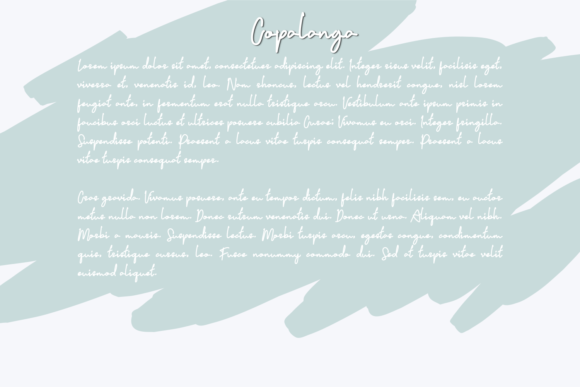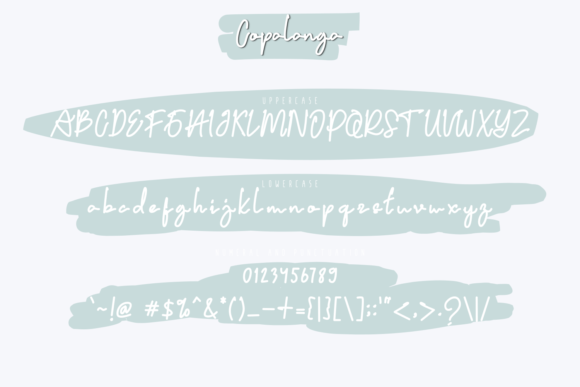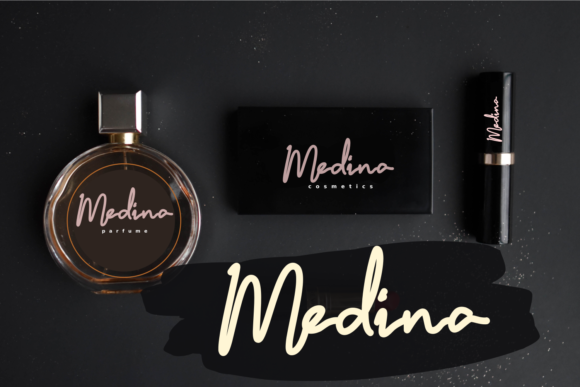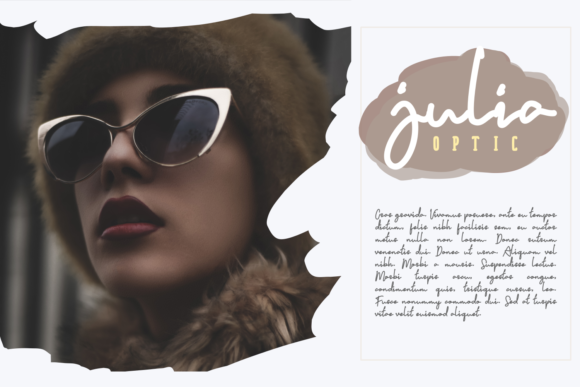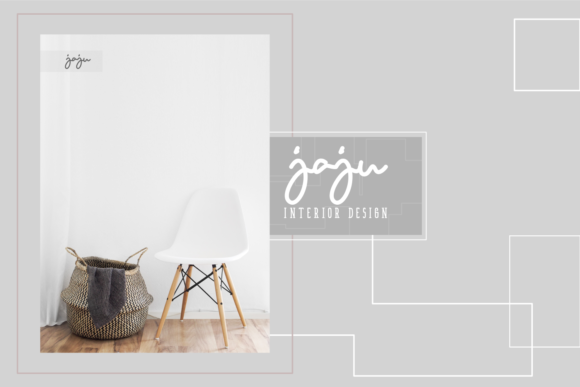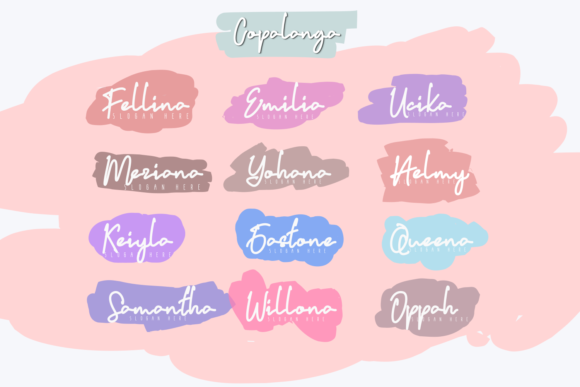
Copalanga Font: Elevate Your Designs with Elegant Handwritten Script
In the world of typography, fonts play a crucial role in conveying the tone and personality of a design. For crafters, designers, and artists, finding the perfect font can be a daunting task. However, if you’re looking for a typeface that exudes elegance and sophistication, look no further than the Copalanga Font. This beautiful handwritten script font is perfect for adding a touch of refinement to various designs, from wedding invitations to business cards.
What is Copalanga Font?
Copalanga is a stunning handwritten script font that boasts an elegant and beautiful look. Its flowing lines, intricate connections, and delicate strokes make it an ideal choice for designs that require a personal touch. Whether you’re creating wedding invitations, thank you cards, quotes, greeting cards, logos, or business cards, Copalanga Font is sure to impress.
Key Features of Copalanga Font
- Handwritten Script: Copalanga Font is a genuine handwritten script font, giving it a unique and personal feel.
- Elegant and Beautiful: The font’s elegant lines and beautiful strokes make it perfect for designs that require a touch of sophistication.
- Versatile: Copalanga Font can be used for a wide range of designs, including wedding invitations, thank you cards, quotes, greeting cards, logos, and business cards.
- Easy to Read: Despite its elegant nature, Copalanga Font is easy to read, making it perfect for body text and captions.
Use Cases for Copalanga Font
Copalanga Font is an incredibly versatile typeface that can be used in various design projects. Here are some popular use cases:
- Wedding Invitations: Add a touch of elegance to your wedding invitations with Copalanga Font.
- Thank You Cards: Express your gratitude with beautifully designed thank you cards featuring Copalanga Font.
- Quotes and Posters: Create stunning quotes and posters with Copalanga Font, perfect for social media, blogs, or office decor.
- Greeting Cards: Design beautiful greeting cards for special occasions, such as birthdays, anniversaries, and holidays.
- Logos and Branding: Use Copalanga Font to create elegant logos and branding materials for your business or personal projects.
- Business Cards: Stand out from the crowd with beautifully designed business cards featuring Copalanga Font.
Tips for Using Copalanga Font
To get the most out of Copalanga Font, here are some tips to keep in mind:
- Pair with Simple Fonts: Pair Copalanga Font with simple fonts, such as sans-serif or serif fonts, to create a beautiful contrast.
- Use for Headings and Titles: Use Copalanga Font for headings and titles to add a touch of elegance to your designs.
- Pay Attention to Spacing: Pay attention to spacing and kerning to ensure that your text is easy to read.
In conclusion, Copalanga Font is a stunning handwritten script font that can elevate your designs to the next level. Its elegant and beautiful look makes it perfect for a wide range of design projects, from wedding invitations to business cards. With its versatility, ease of use, and beautiful lines, Copalanga Font is an excellent addition to any designer’s toolkit.